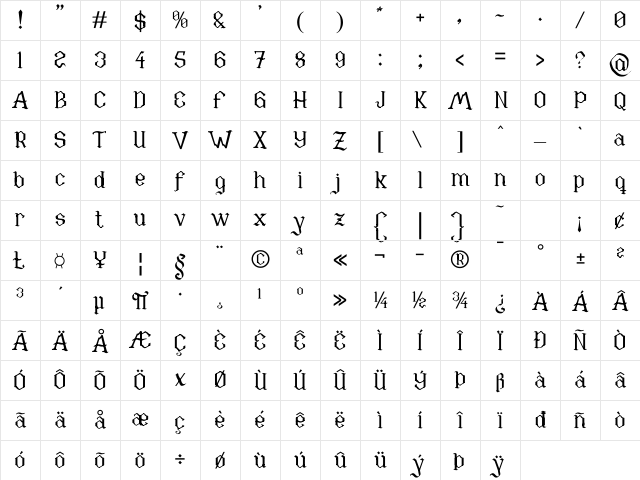
Xefora Regular
Foundry: Juan Casco
Designer: ￿ Juan Casco, 2011
Design Context for Xefora
Xefora is a composed and adaptable typeface that performs quietly and consistently across a wide range of design contexts.